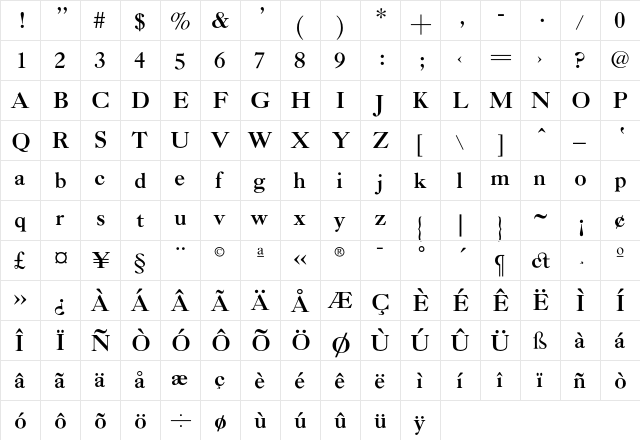
CaslonBoldZL Regular Font Preview
CaslonBoldZL Regular
CaslonBoldZL Regular Font Details
Design Context for CaslonBoldZL Typeface
CaslonBoldZL takes a measured approach to typography — its balanced proportions and neutral character make it a reliable workhorse for both digital and print work. Its bold stroke weight gives it real presence on the page.